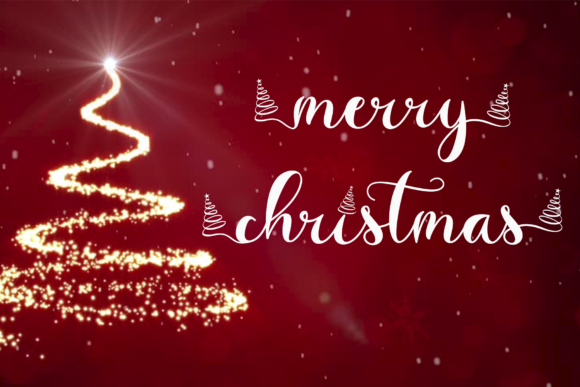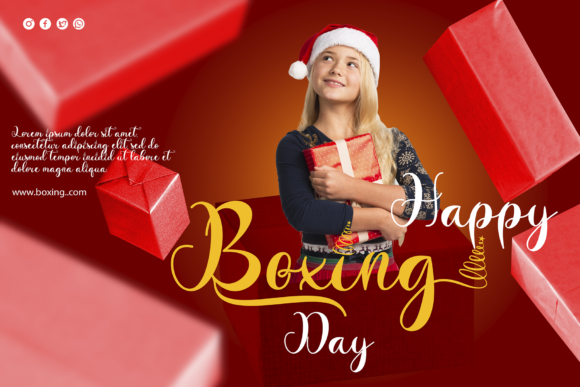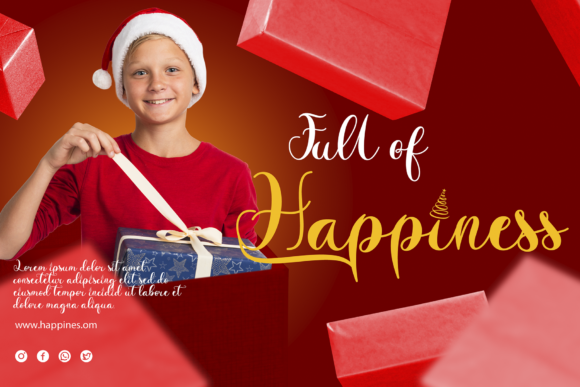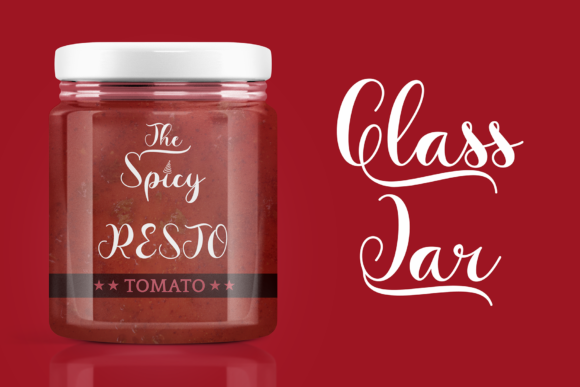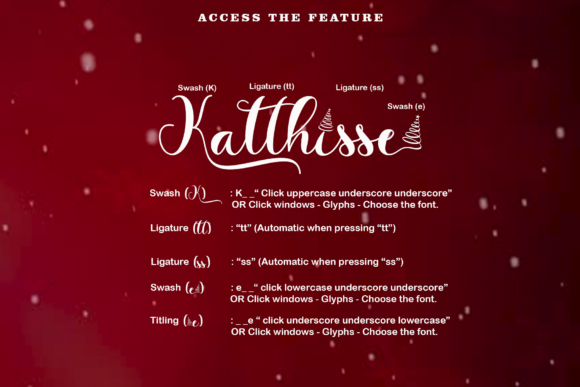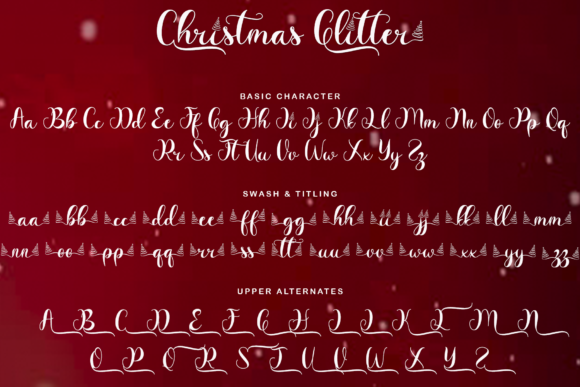
Introducing Christmas Glitter Font: Add Elegance to Your Designs
Are you looking for a font that can add a touch of elegance and class to your designs? Look no further than Christmas Glitter Font! This lovely and delicate script font is perfect for designers and crafters who want to create beautiful and refreshing designs. In this article, we’ll take a closer look at Christmas Glitter Font and explore its features, benefits, and uses.
What is Christmas Glitter Font?
Christmas Glitter Font is a stunning script font that is designed to exude elegance and sophistication. It features delicate and intricate lettering that is perfect for creating beautiful designs, such as holiday cards, invitations, and crafts. The font is particularly crafted for designers and crafters who need a unique and refreshing look to their designs.
Key Features of Christmas Glitter Font
So, what makes Christmas Glitter Font so special? Here are some of its key features:
- PUA Encoded: Christmas Glitter Font is PUA (Private Use Area) encoded, which means that you can access all glyphs and swashes with ease. This makes it easy to use the font in your designs and projects.
- Delicate and Intricate Lettering: The font features delicate and intricate lettering that is perfect for creating beautiful designs. The letters are carefully crafted to exude elegance and sophistication.
- Elegant and Classy: Christmas Glitter Font is designed to add a touch of elegance and class to your designs. It’s perfect for creating designs that require a sophisticated look and feel.
- Versatile: The font is versatile and can be used in a variety of designs, such as holiday cards, invitations, crafts, and more.
Benefits of Using Christmas Glitter Font
So, why should you use Christmas Glitter Font in your designs? Here are some benefits:
- Adds Elegance and Sophistication: The font adds a touch of elegance and sophistication to your designs, making them stand out from the crowd.
- Easy to Use: The font is easy to use, thanks to its PUA encoding. You can access all glyphs and swashes with ease, making it simple to create beautiful designs.
- Versatile: The font is versatile and can be used in a variety of designs, making it a great addition to your font collection.
- Perfect for Holiday Designs: The font is perfect for holiday designs, such as Christmas cards, invitations, and crafts.
Uses of Christmas Glitter Font
So, what can you use Christmas Glitter Font for? Here are some ideas:
- Holiday Cards: Use the font to create beautiful holiday cards for your loved ones.
- Invitations: Create elegant invitations for parties, weddings, and other special events.
- Crafts: Use the font to create beautiful crafts, such as paper crafts, scrapbooking, and more.
- Digital Designs: Use the font in your digital designs, such as social media graphics, blog posts, and more.
Tips for Using Christmas Glitter Font
Here are some tips for using Christmas Glitter Font:
- Use it Sparingly: Use the font sparingly to add a touch of elegance and sophistication to your designs.
- Pair it with Other Fonts: Pair the font with other fonts to create a unique and interesting look.
In conclusion, Christmas Glitter Font is a beautiful and elegant script font that is perfect for designers and crafters who want to add a touch of elegance and sophistication to their designs. With its PUA encoding, delicate and intricate lettering, and versatile uses, it’s a great addition to any font collection. Whether you’re creating holiday cards, invitations, crafts, or digital designs, Christmas Glitter Font is sure to impress.